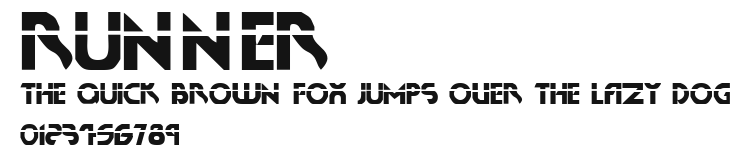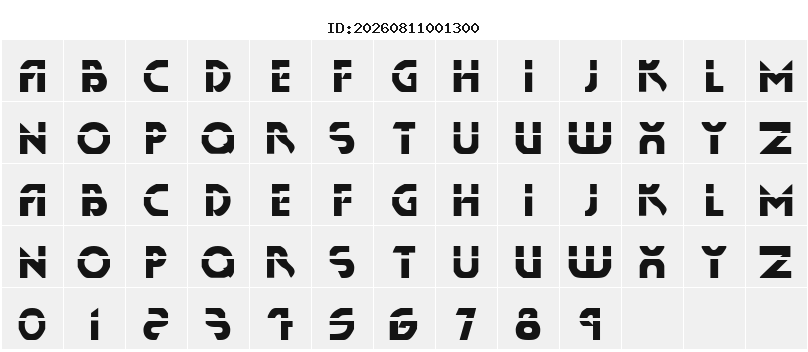
• Font Name: Runner
• Full Font Name: Runner
About Runner.ttf
Runner.ttf is a modern, elegant sans-serif font designed for ultimate readability and visual harmony. Perfect for branding, headlines, web design, and print materials.